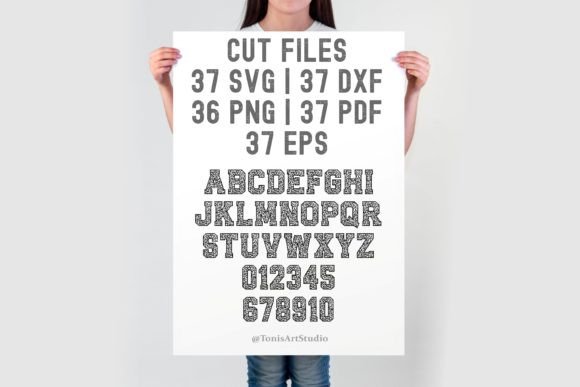
Ab Leopard Varsity Font
Transform your creative projects with our versatile Leopard Font Varsity Letters! This unique collection includes SVG, TTF, PNG, DXF, EPS, and PDF files, providing you with a variety of formats to suit your design needs. Perfect for creating custom apparel, home decor, digital designs, and more, this distinctive leopard print combined with classic varsity styling will add a bold and trendy touch to all your crafts.